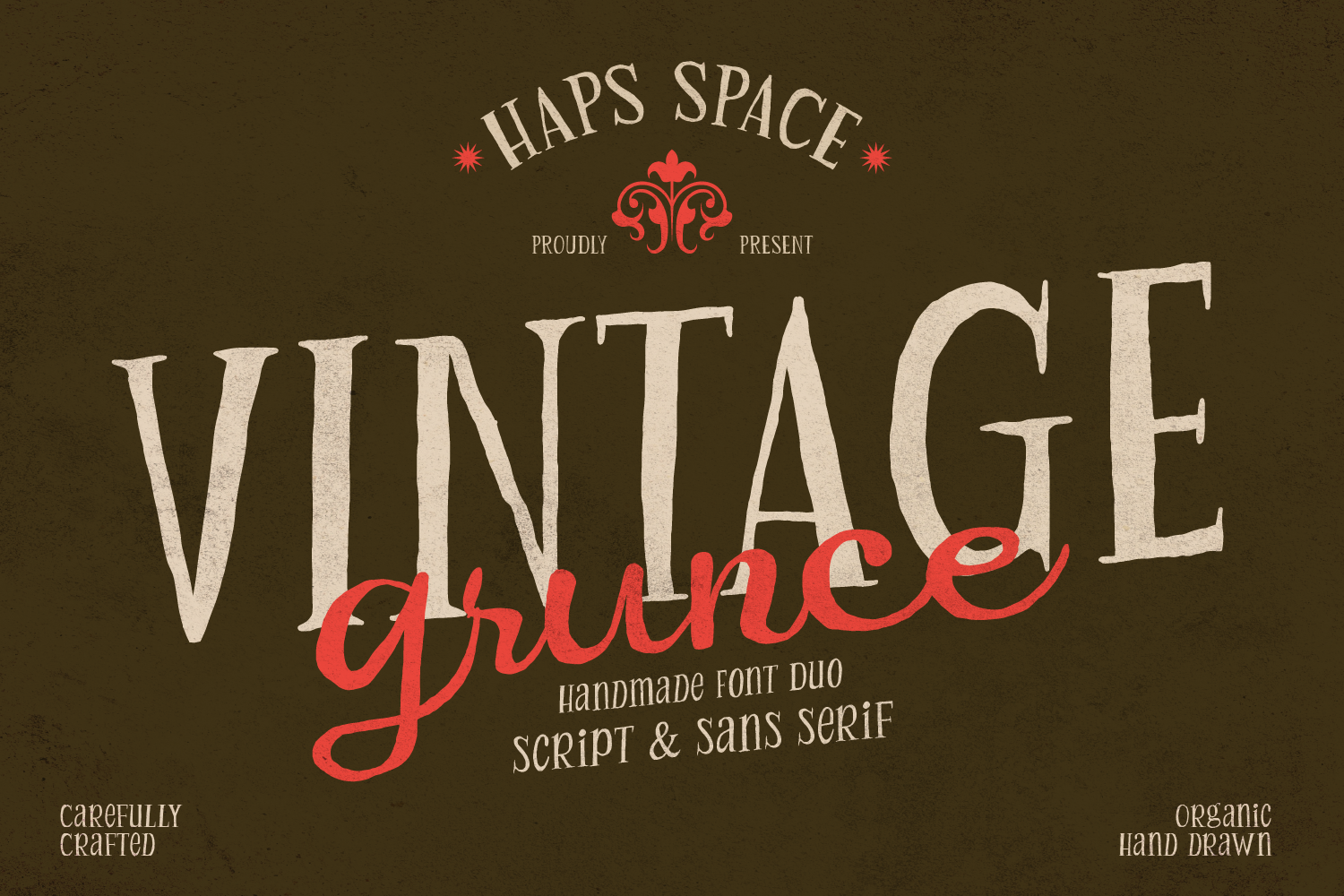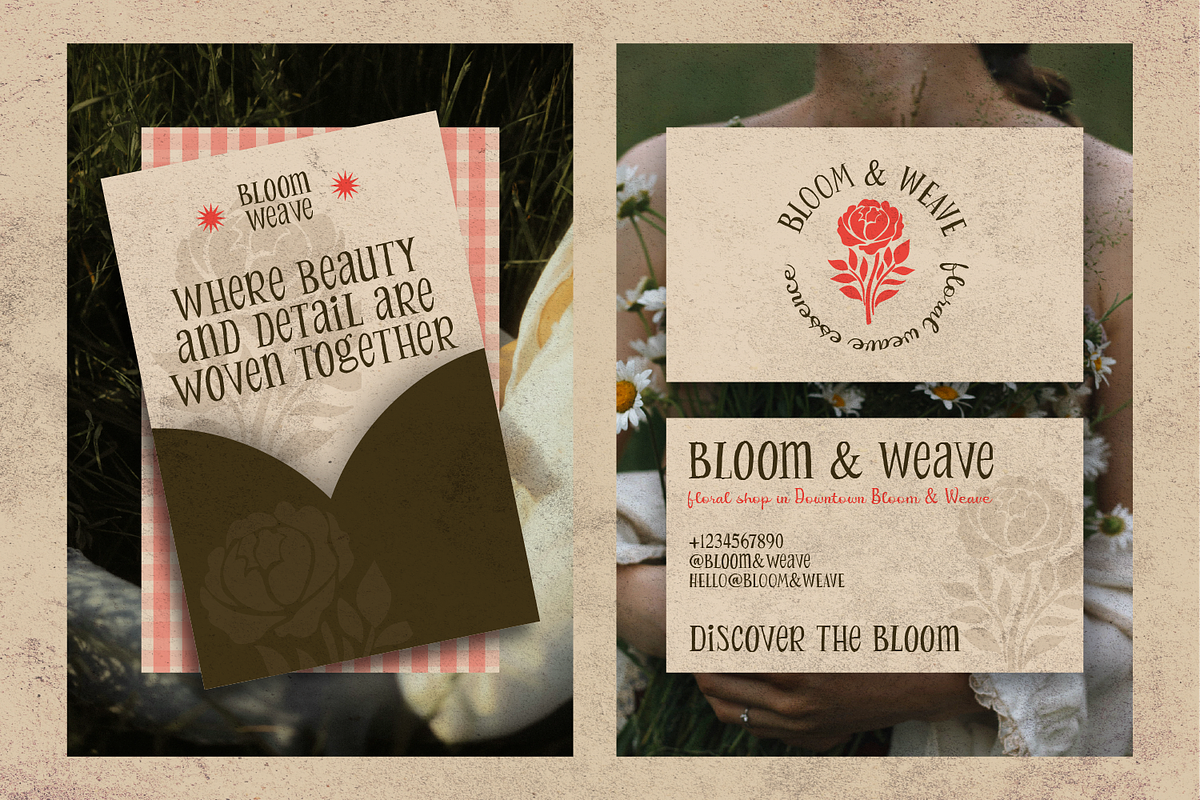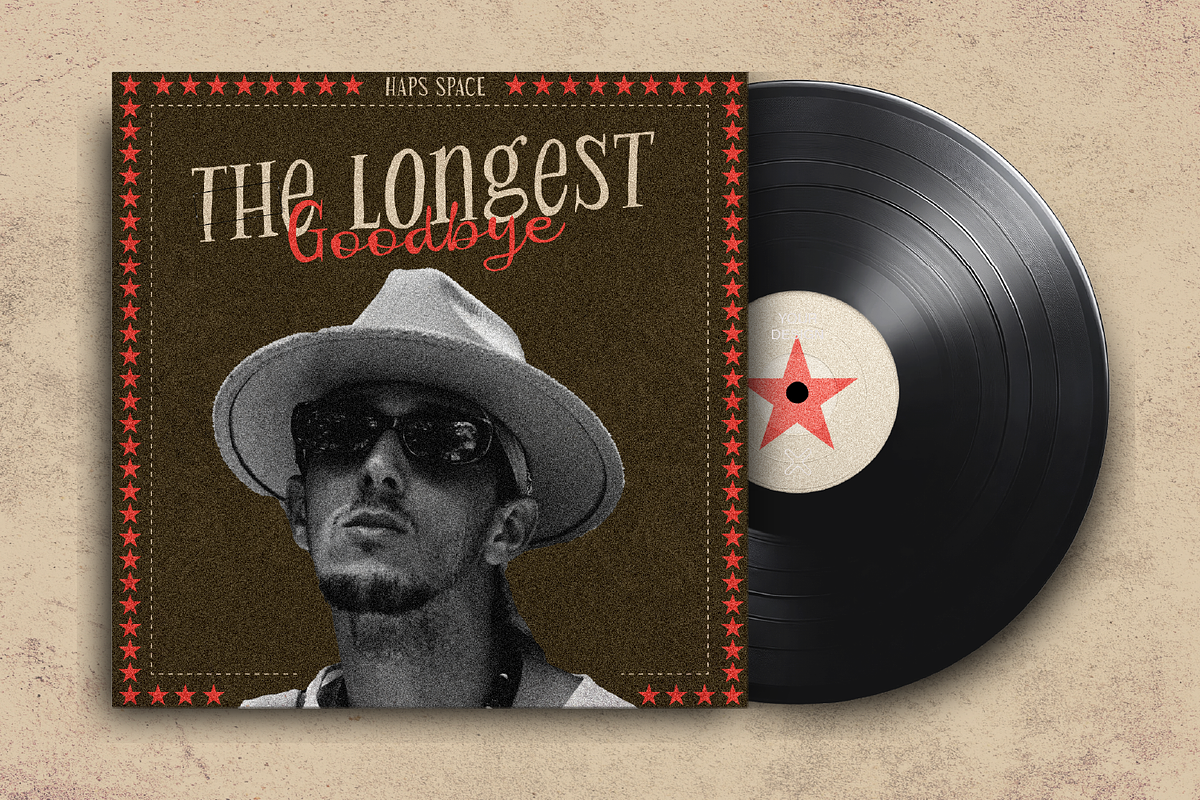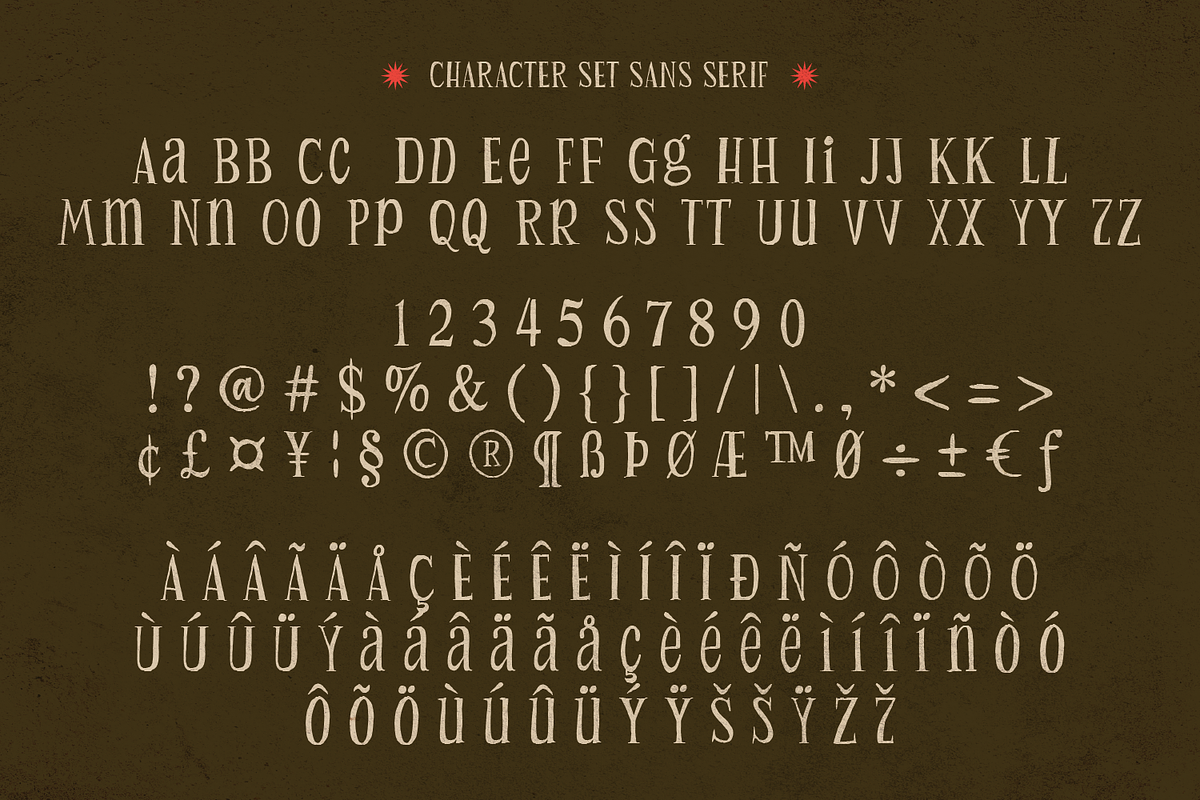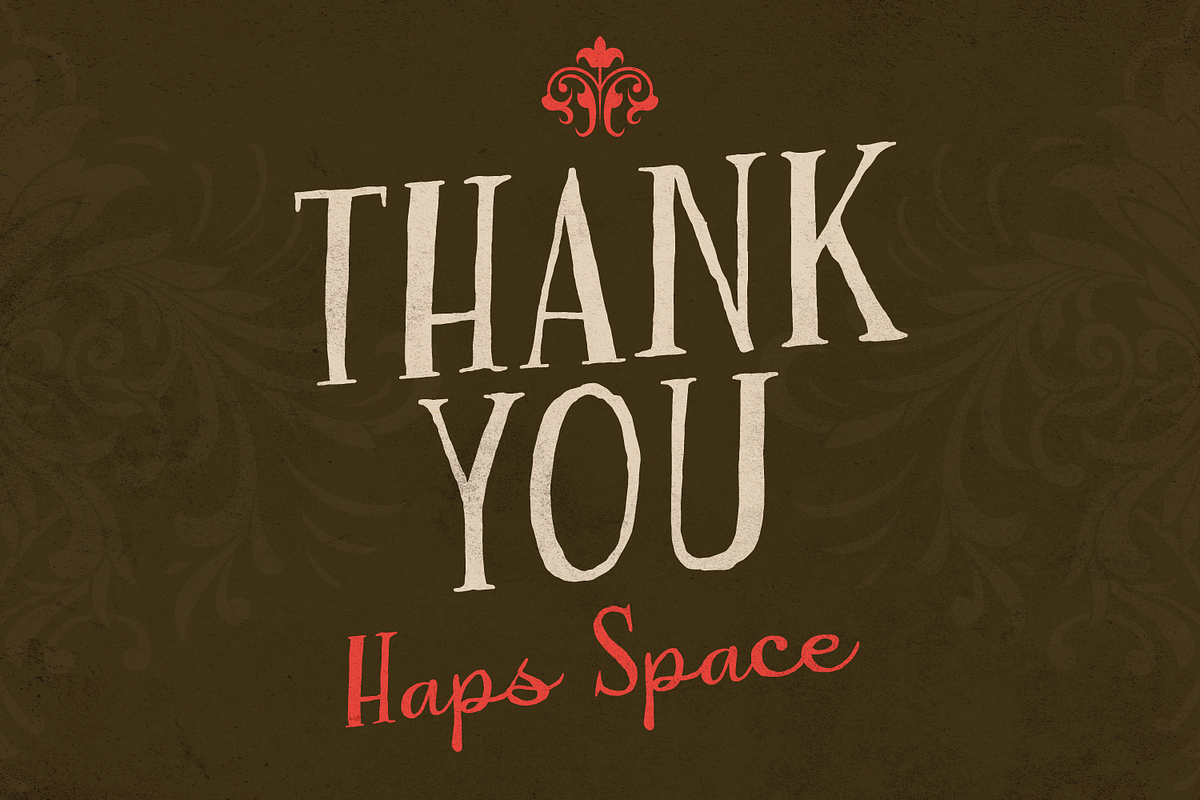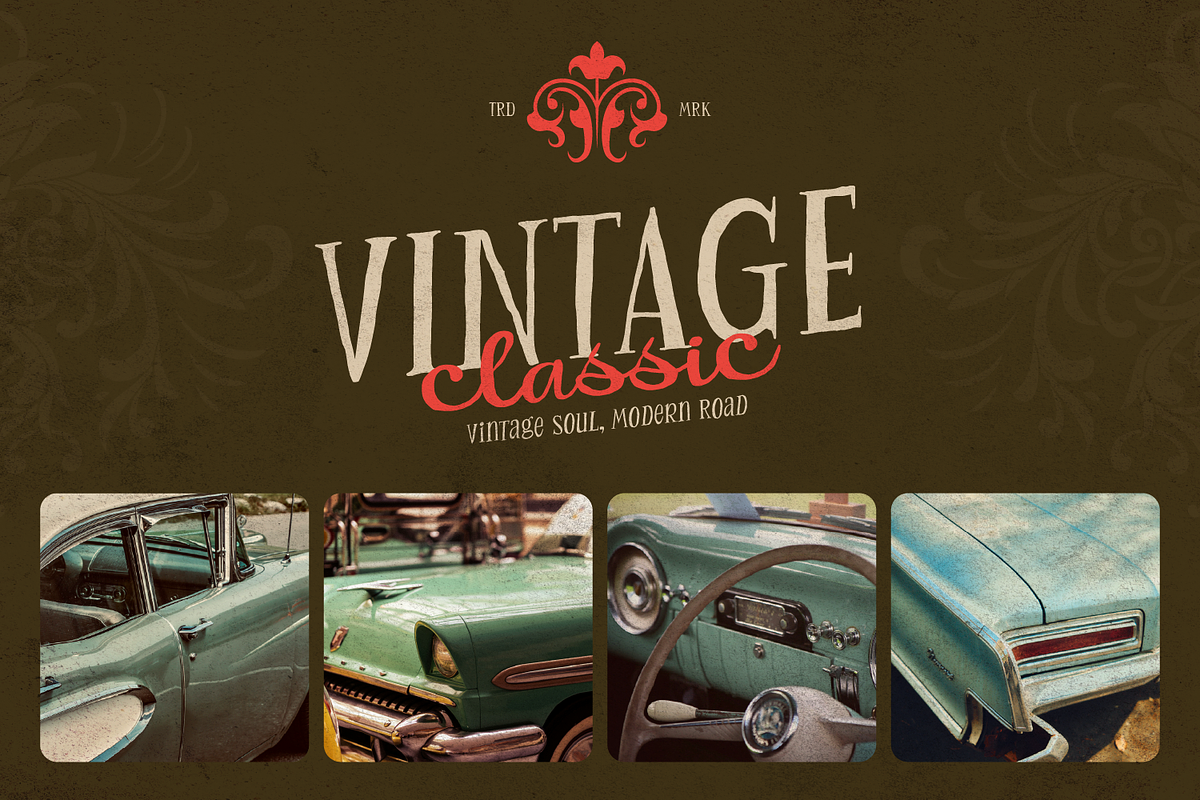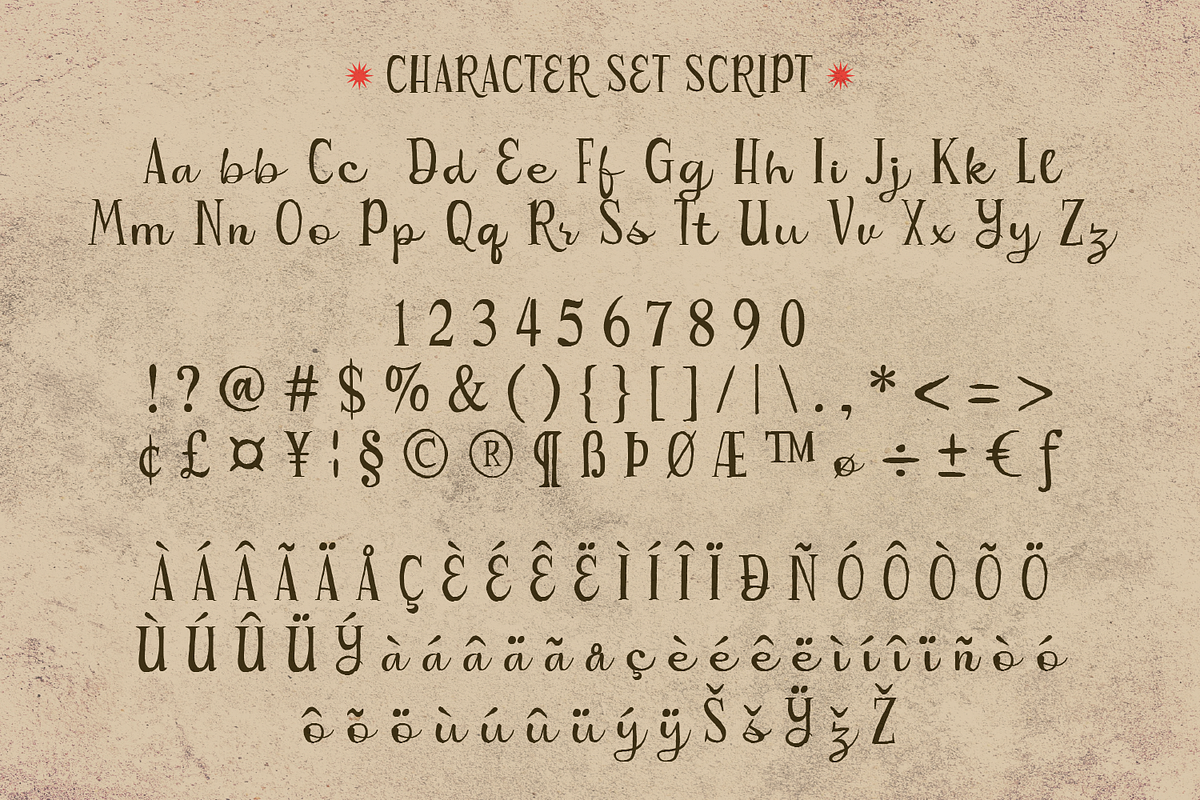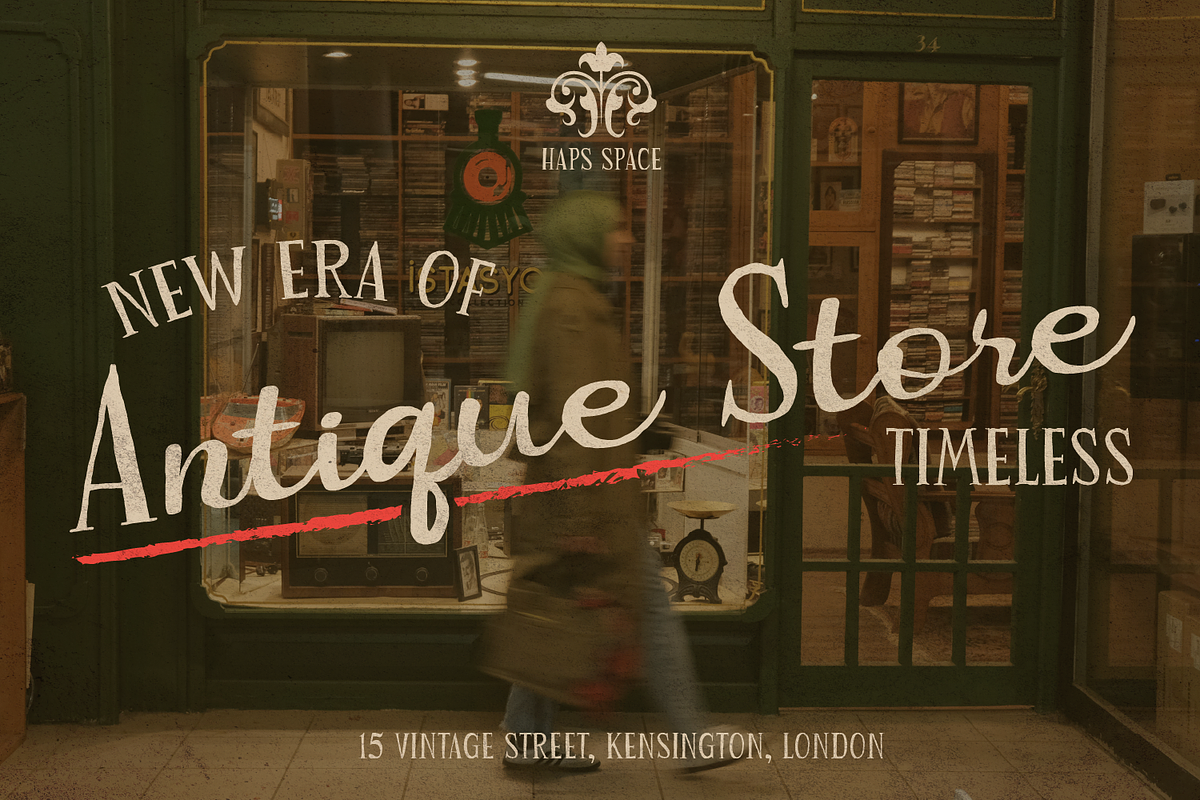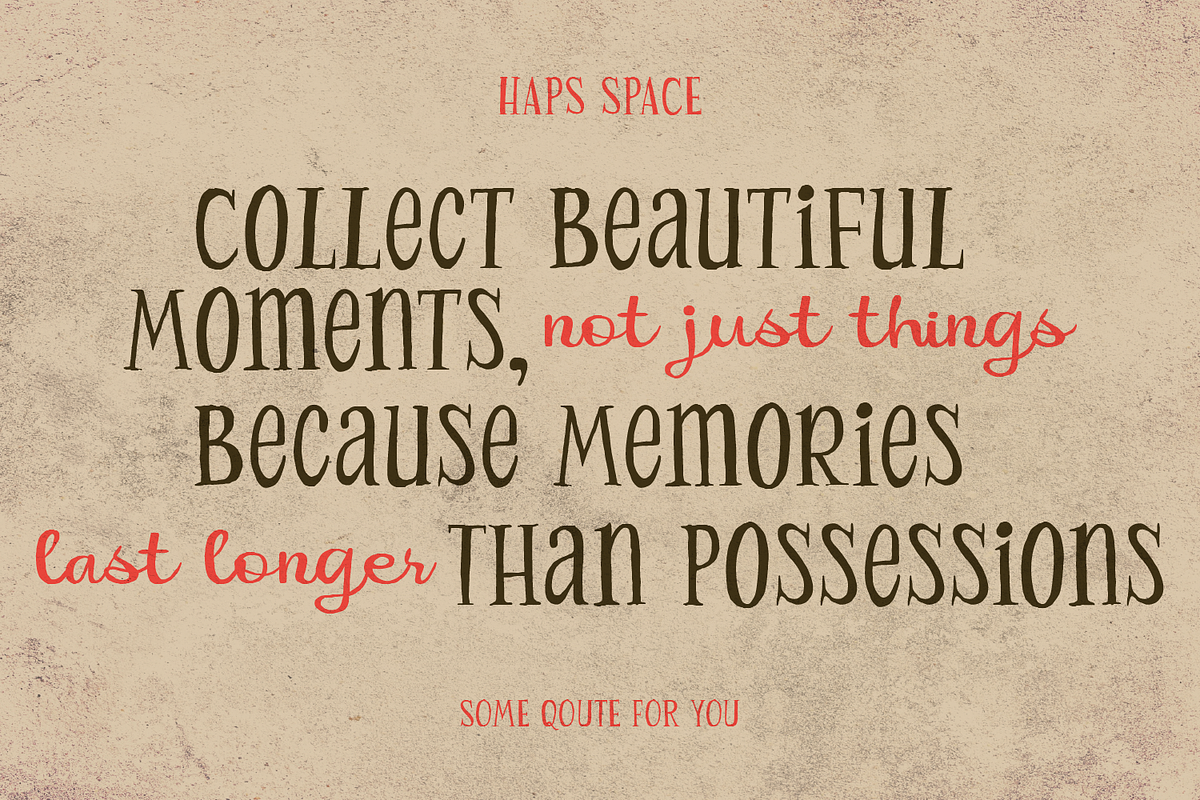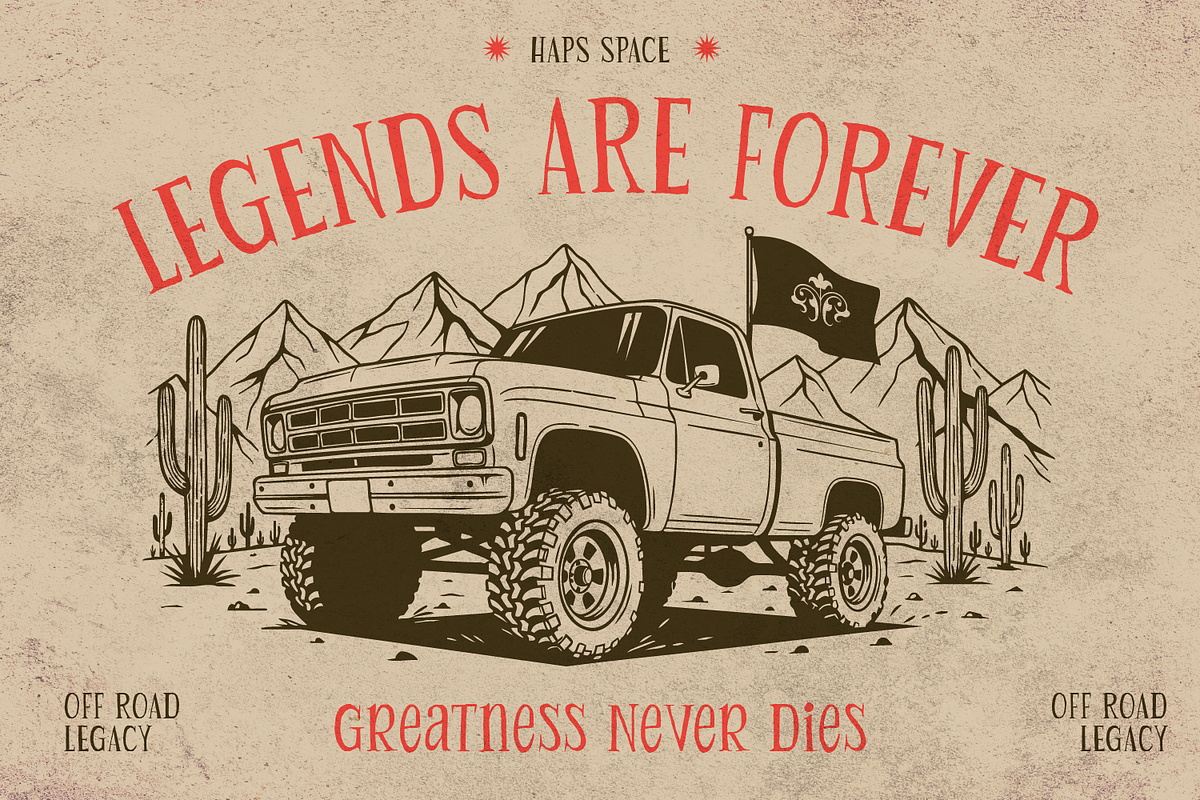
Vintage Grunge Handmade Font Duo
Introduce a raw, authentic texture to your designs with Vintage Grunge, a carefully crafted handmade font duo. This package pairs a rugged, tall Sans Serif with a fluid, expressive Script font, designed to work together in perfect harmony.
With its organic, hand-drawn imperfections and distressed edges, Vintage Grunge captures the nostalgic essence of vintage signboards, retro garage packaging, and industrial heritage branding. It is the ultimate toolkit for creators looking to move away from clean digital straightness and embrace a tactile, soulful, and rebellious aesthetic.
Ideal For:
- Retro & Industrial Branding: Perfect for motorcycle shops, cafes, barbershops, and artisanal brands.
- Packaging Design: Gives a rustic, craft-focused look to beer labels, coffee bags, and organic goods.
- Merchandise : Ideal for striking Merch designs, retro posters, and badging.
- Editorial Layouts: Adding a bold, textured statement lifestyle magazine headers.
* Full multilingual character set
* OpenType features such as ligatures and alternates